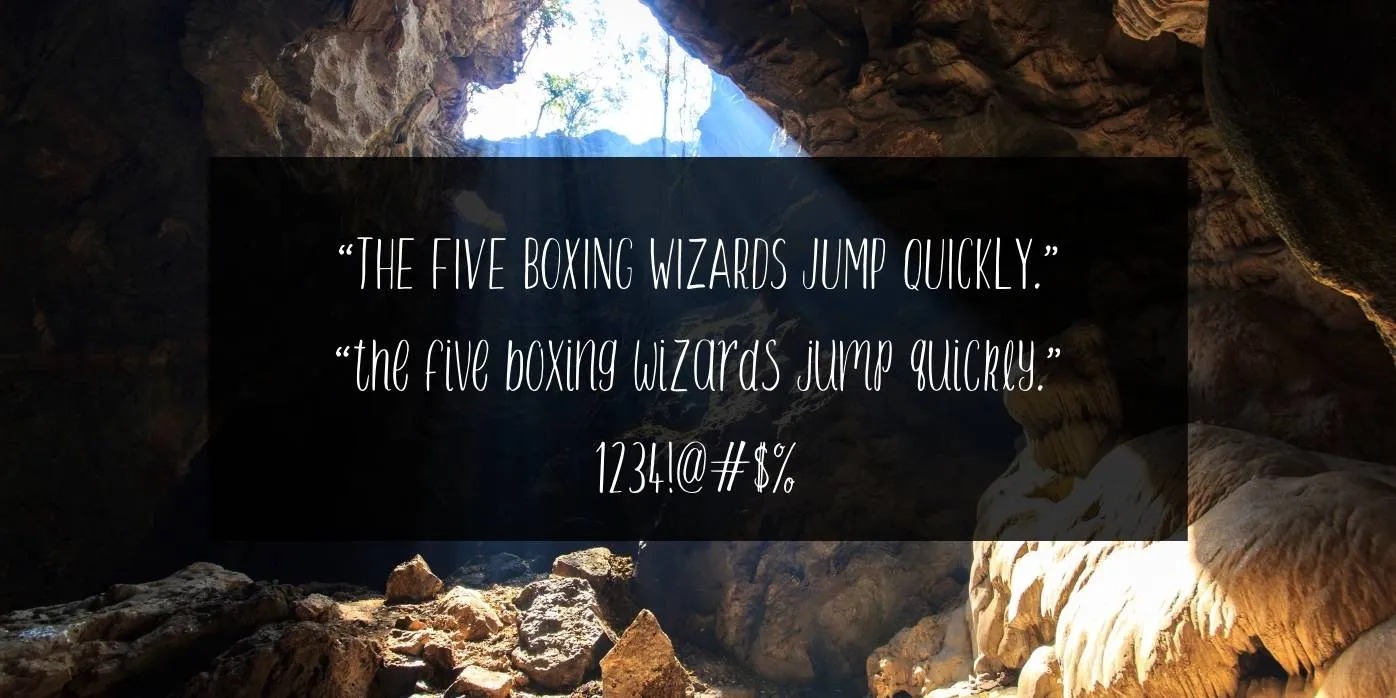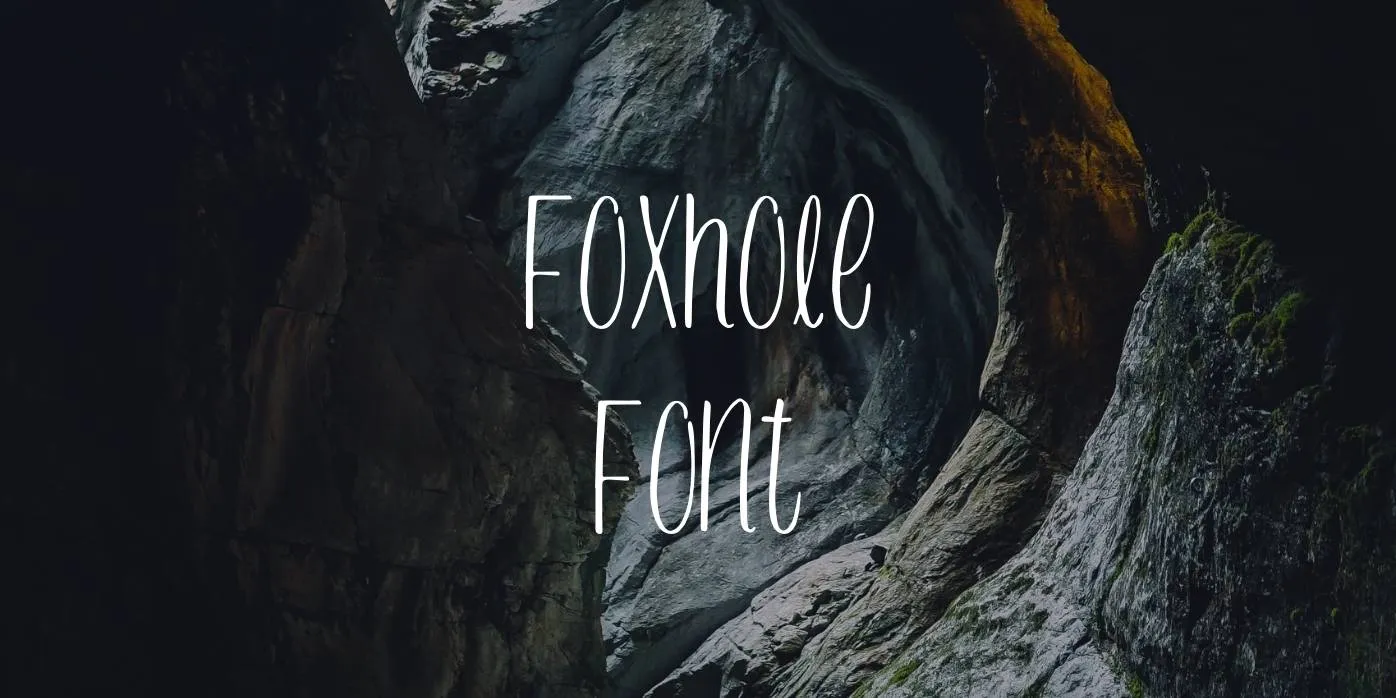
Foxhole Font
Today, we introduce a very modern typeface Foxhole Font. This stunning font family was created by Ian Barnard. It belongs to the brush font family. This staggering font family contains 12 different fonts including regular, italic, and condensed styles.
It is well specified by the CSS. Its character set of this font supports a wide range of languages. You can use this font for various purposes such as headlines, logos, wedding invitations, t-shirts, letterheads, signs, posters, etc. Its copy and paste function is perfect for many advanced designs.
You can also use the forte font which is closest to this font family. It is perfect for use in Adobe. This brush typeface has a unique style that makes it stand out from the rest. The letters are tall and thin with rounded edges.
This gives the font a very modern and sleek look. If you are looking for a stylish and versatile sans serif font, then the Foxhole Font is a great choice. You need to use its generator tool for many graphic designs.